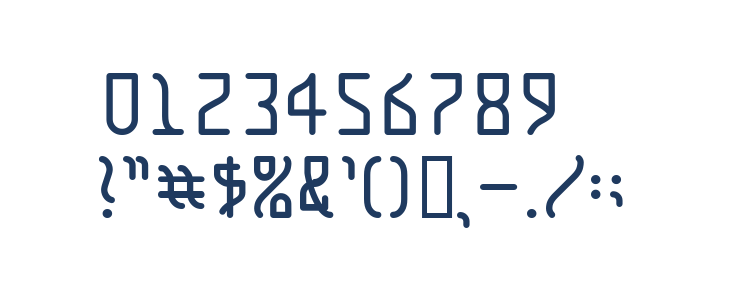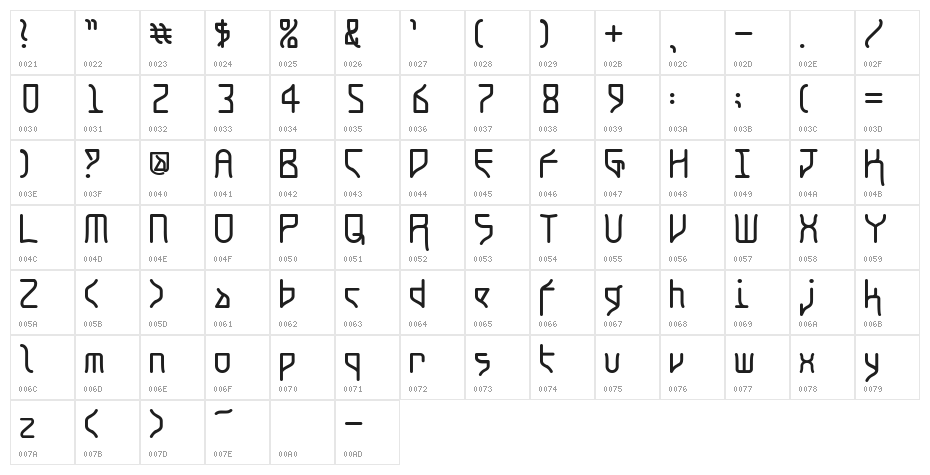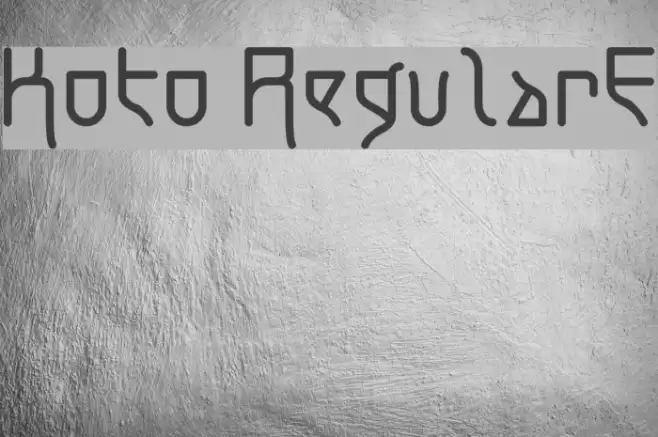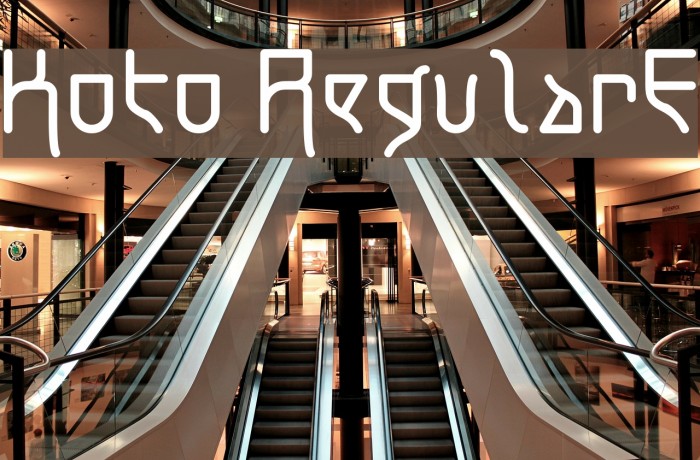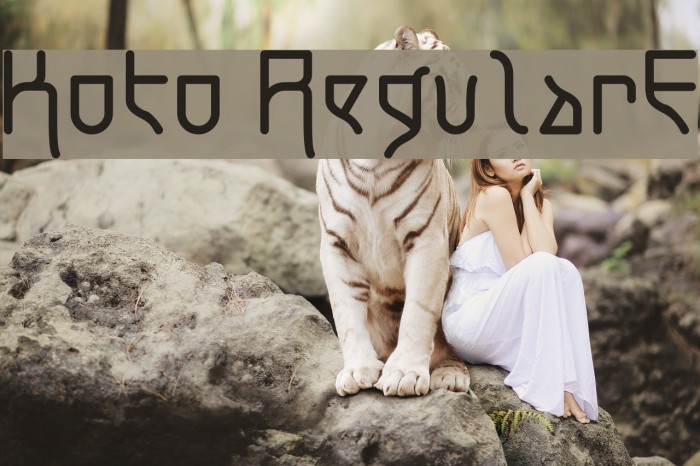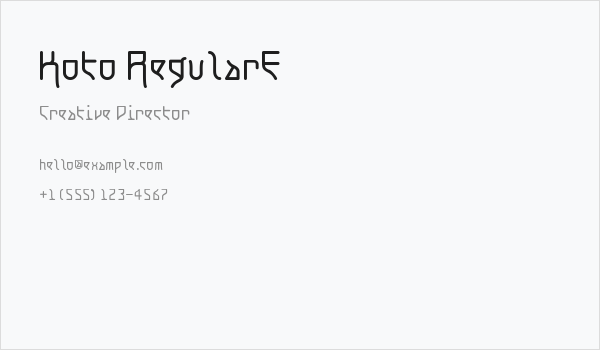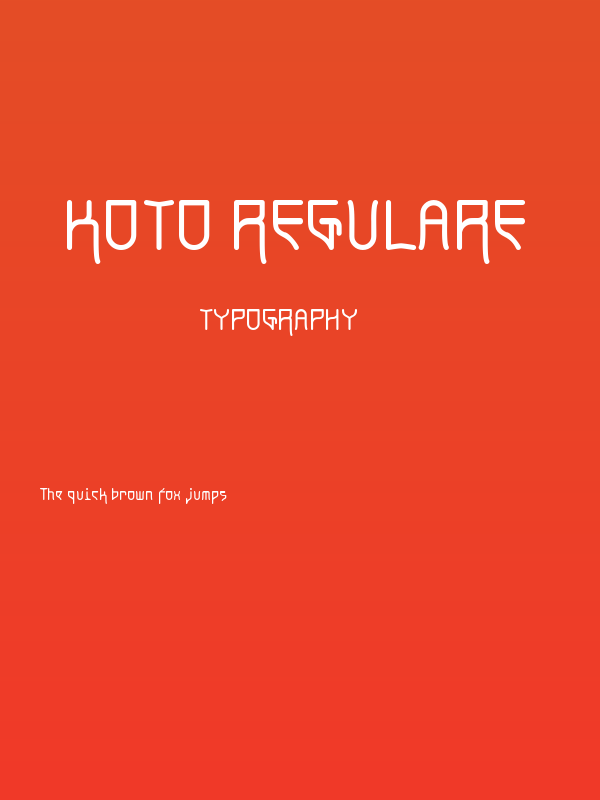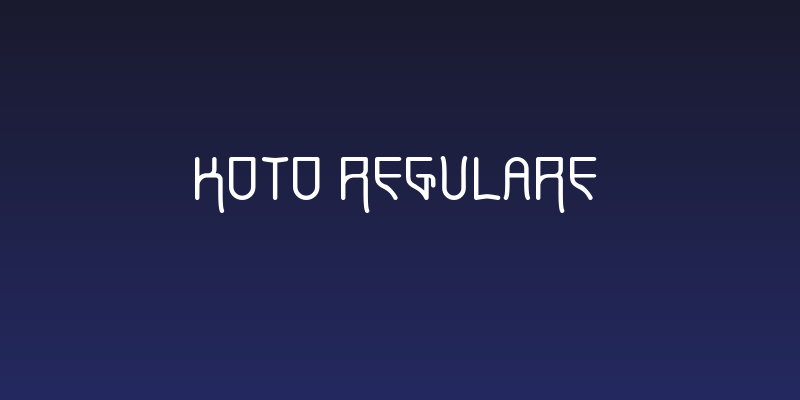
Koto RegularE Font
Koto RegularE Description
This font features a unique and modern design, characterized by its geometric and slightly angular letterforms. The strokes are consistent in width, giving it a monoline appearance. Each character is distinct, with a futuristic and tech-inspired aesthetic that makes it stand out. The uppercase and lowercase letters maintain a cohesive style, while the numerals and special characters complement the overall design. Its clean lines and structured form make it suitable for contemporary projects.
Use CaseLogos, Headlines, Digital interfaces
Proposed ProjectsIdeal for technology branding, modern posters, digital interfaces, and futuristic-themed designs.